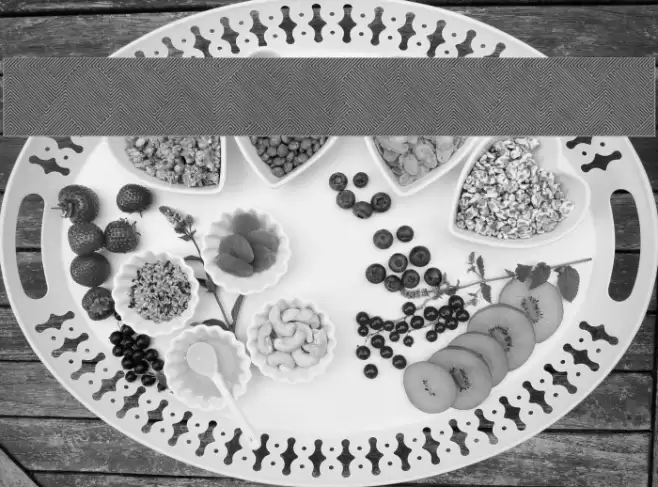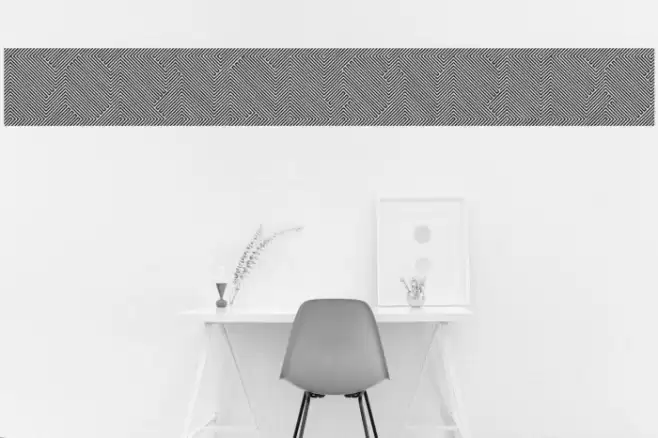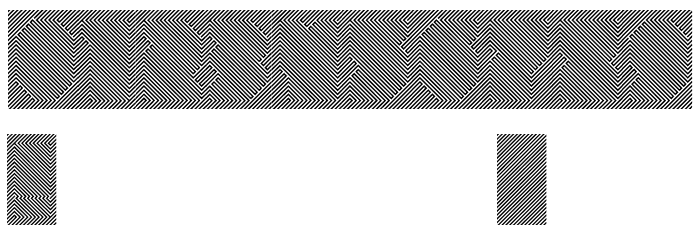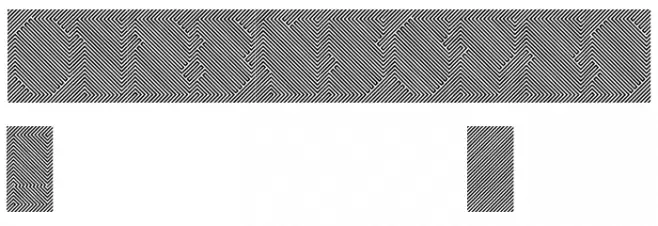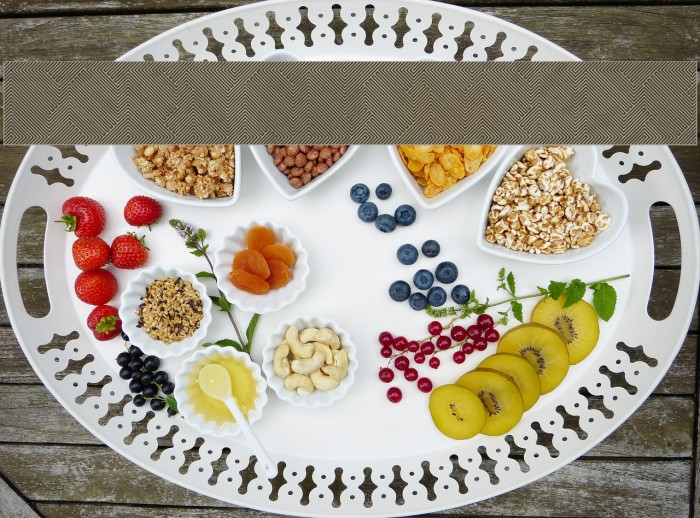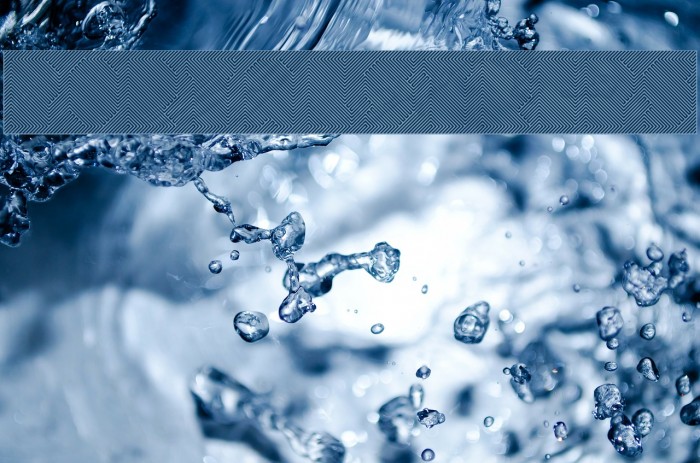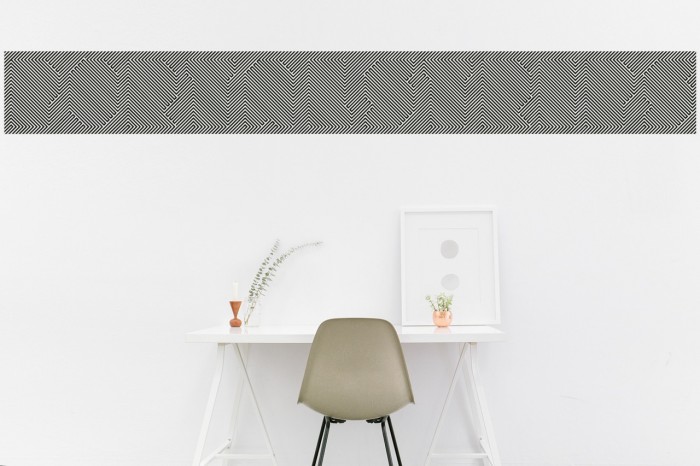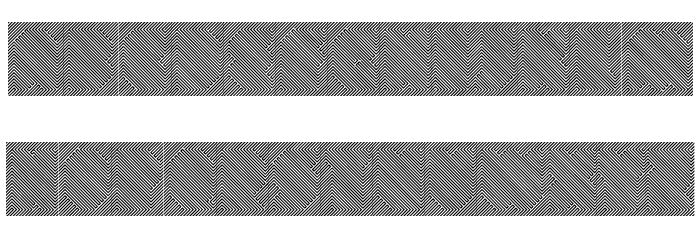
PortalStrips Font
PortalStrips Description
This design features a series of intricate, geometric patterns that create a visually striking effect. The patterns consist of tightly woven lines forming a zigzag or chevron-like appearance, which gives a sense of movement and depth. The overall look is modern and dynamic, making it suitable for contemporary design projects. The repetitive nature of the design allows for seamless integration into various applications, providing a bold and eye-catching aesthetic.
Intricate geometric patterns with a modern, dynamic appearance from Uncategorized fonts.
- Proposed Projects: Ideal for use in wallpaper designs, modern art installations, or as a background for digital media projects.
- Character Spacing: Tight
- Use Case: Decorative elements, backgrounds, art installations.